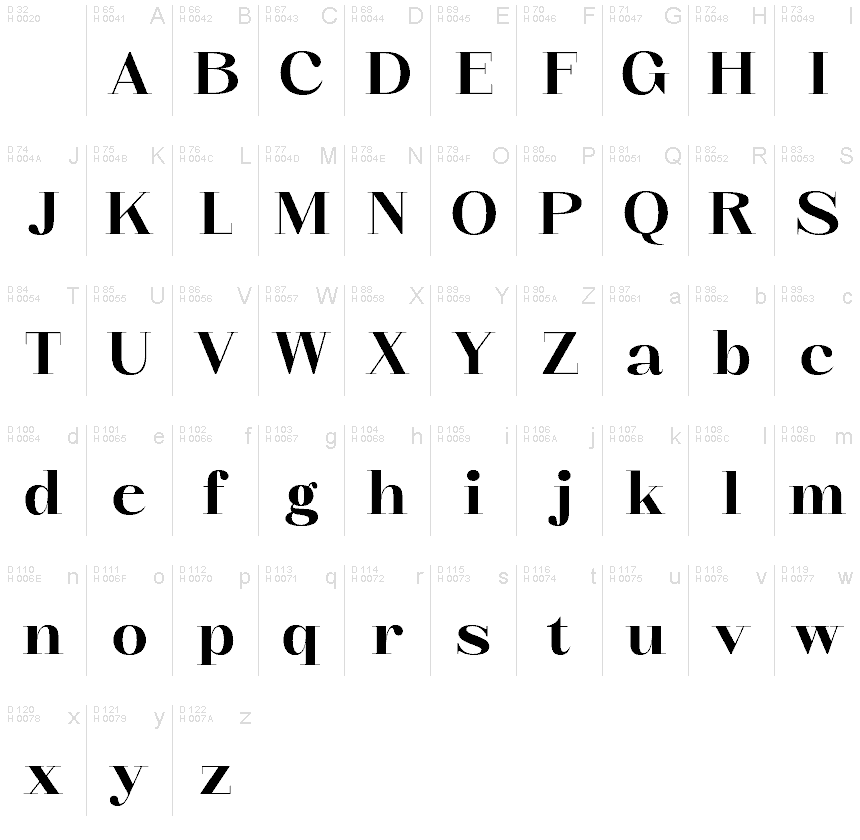
CS Albert Demo Regular
CS Albert font by Craft Supply Co. is an elegant serif typeface with a refined appearance that radiates class and style. This expanded font has a classic old-style look and professional tone, an authoritative presence that makes it suitable for readers looking for eye-catching letters in typography projects.
Use the free serif font in your book covers, magazines, editorials, posters, apparel prints, beauty product packages, cosmetics labels, logos used on royal or classy brands’ packaging designs amongst many others!